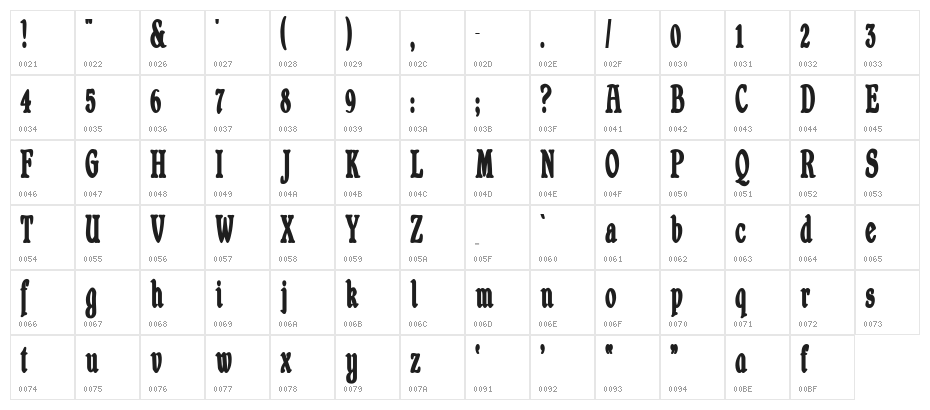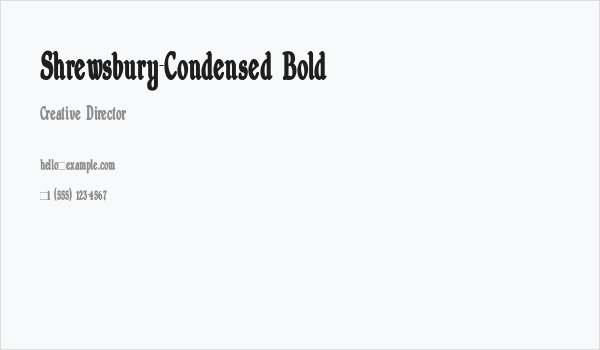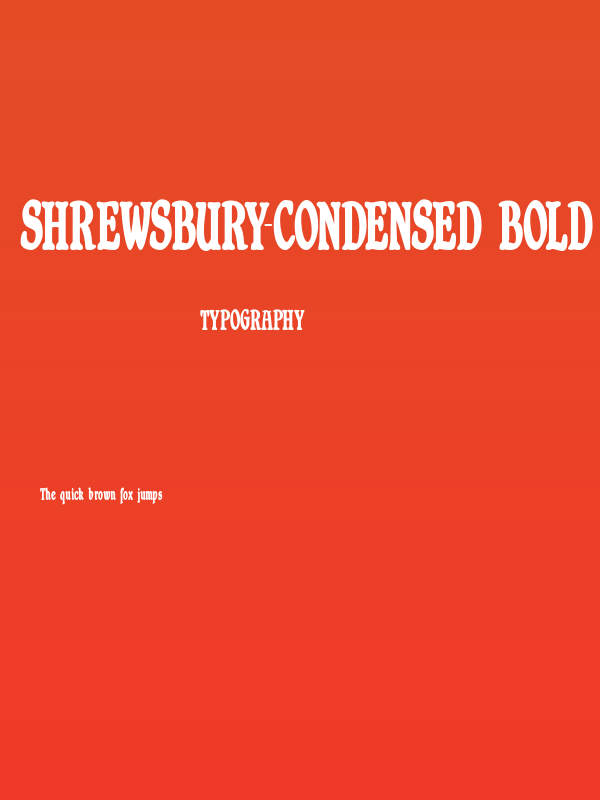
Shrewsbury-Condensed Bold Font
Shrewsbury-Condensed Bold Description
This font features a bold and condensed style, characterized by its strong and impactful presence. The letters are tightly spaced, enhancing its compact appearance. The strokes are thick, providing high contrast and making it suitable for attention-grabbing designs. The uppercase and lowercase letters maintain a consistent weight, ensuring readability while conveying a sense of modernity and strength. The numerals and special characters align with the overall bold aesthetic, making this font versatile for various applications.
| Proposed Projects | This font is perfect for headlines, posters, branding materials, and any design that requires a strong visual impact. |